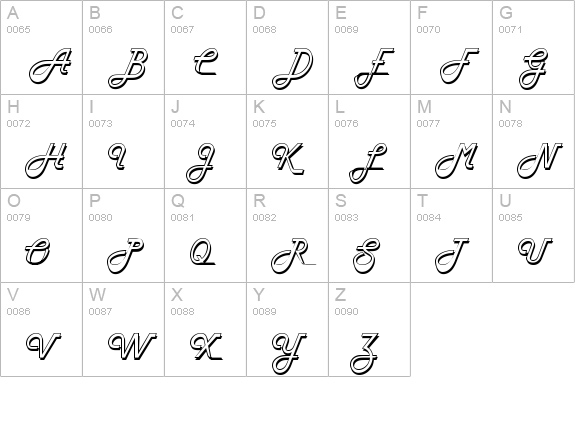
HarlowICG Font Details
HarlowICG font, a captivating typeface that exudes elegance and sophistication, is the perfect choice for those seeking a touch of timeless beauty in their design projects. With its delicate curves and graceful letterforms, this font effortlessly captures attention and adds a touch of class to any composition. The versatility of HarlowICG font knows no bounds, as it seamlessly adapts to various design styles and themes, making it an ideal choice for both print and digital media. Whether used in a logo, heading, or body text, this font adds a sense of refinement and finesse, elevating any project to a whole new level. And the best part? HarlowICG font is absolutely free! Yes, you read that right. This stunning typeface is freely available to download at FontsMarket.com, allowing designers and creatives alike to access its beauty without breaking the bank. Now you can create stunning designs without compromising on quality or budget. So go ahead and explore the enchanting world of HarlowICG font. Let its timeless charm inspire your creativity and bring your design visions to life. With its free availability and undeniable allure, this font is a must-have for anyone looking to make a lasting impression. Download HarlowICG font today and unlock the power of elegance in your design endeavors.